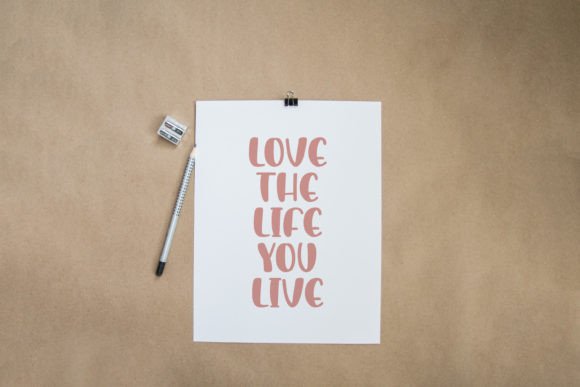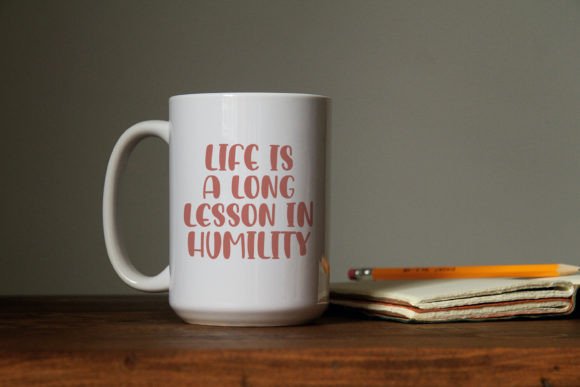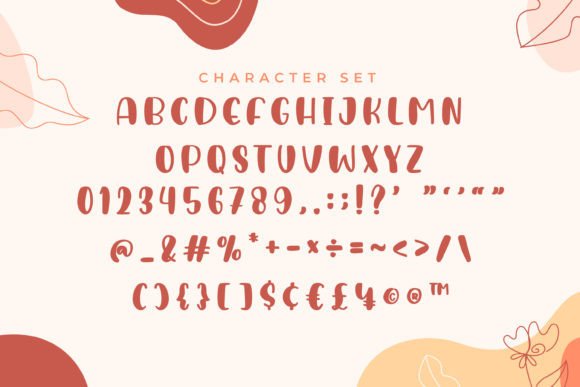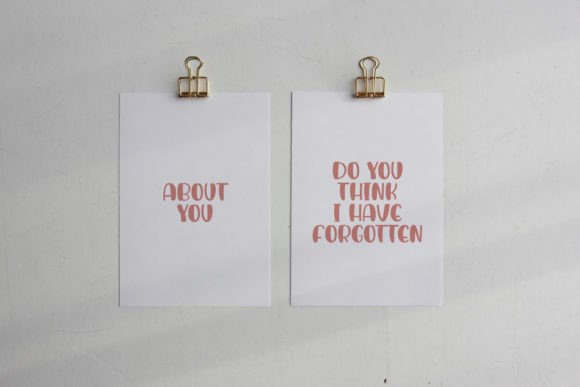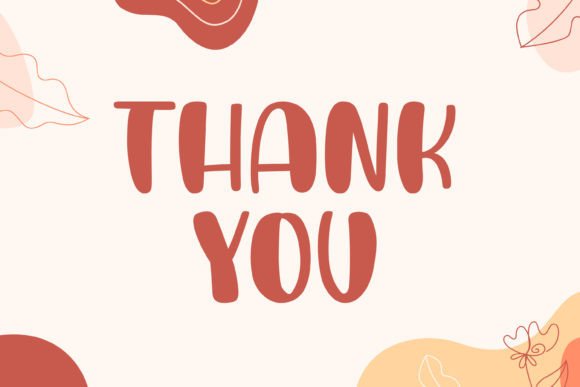
Introducing Grania Font: The Ultimate Display Font for Kids’ Projects
Are you a designer, crafter, or educator looking for a font that can add a touch of playfulness and authenticity to your kids’ projects? Look no further than Grania Font! This cute and colorful display font is perfect for any children’s activity or school project, and is sure to make your designs come alive.
What is Grania Font?
Grania Font is a chunky lettered font that is designed to bring a sense of fun and creativity to your designs. Its bold and colorful letters are perfect for grabbing the attention of kids and making your projects stand out. Whether you’re creating posters, flyers, or worksheets, Grania Font is the perfect choice.
Key Features of Grania Font
- Cute and Colorful: Grania Font features bright and vibrant colors that are sure to delight kids and add a pop of color to your designs.
- Chunky Lettering: The font’s chunky lettering style makes it easy to read and perfect for display purposes.
- Playful and Authentic: Grania Font embodies a sense of playfulness and authenticity that is perfect for kids’ projects.
Uses for Grania Font
Grania Font is perfect for a wide range of kids’ projects, including:
- School Posters: Create eye-catching posters for school events, announcements, and projects.
- Children’s Worksheets: Add a touch of fun and personality to your worksheets and activity sheets.
- Craft Projects: Use Grania Font to add a personal touch to your craft projects, such as DIY cards, gift tags, and scrapbook pages.
- Kids’ Party Decor: Create custom party decor, such as banners, invitations, and party favors, using Grania Font.
Tips for Using Grania Font
| Font Name | Grania Font |
| Author | Role Type |
Grania Font is a versatile and fun display font that is perfect for kids’ projects. Its cute and colorful design makes it a great choice for designers, crafters, and educators looking to add a touch of playfulness and authenticity to their work. With its ease of use and wide range of applications, Grania Font is sure to become a favorite in your design toolkit.